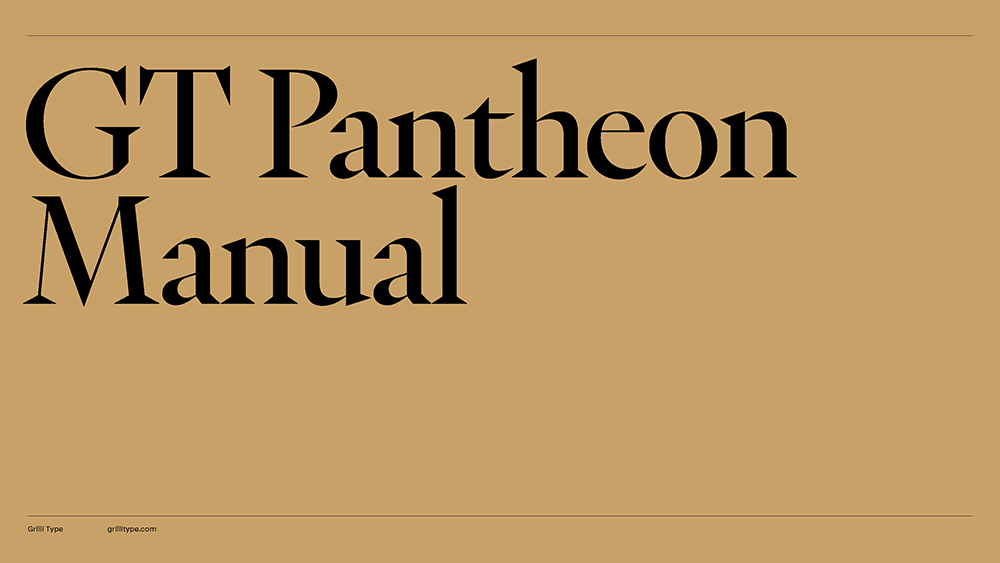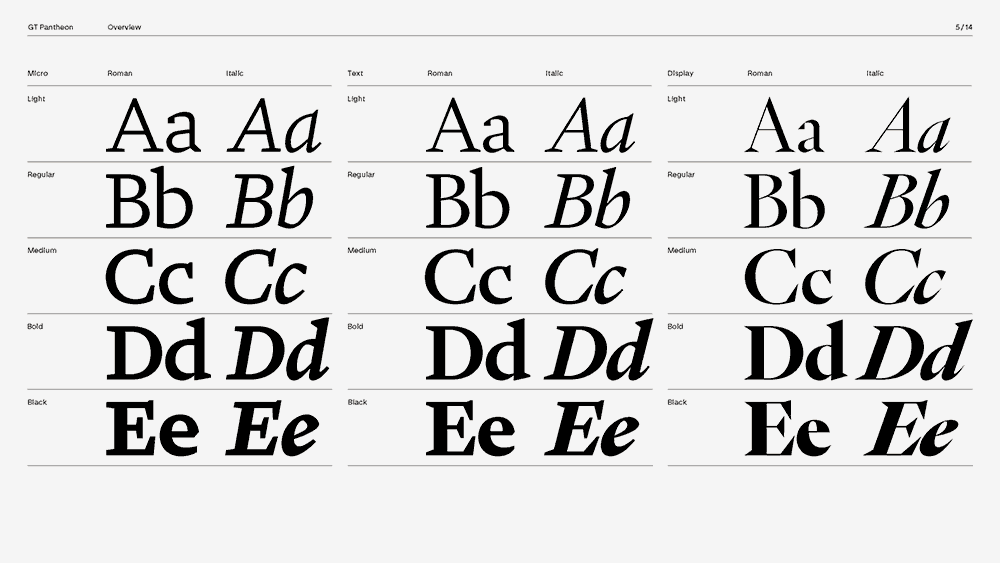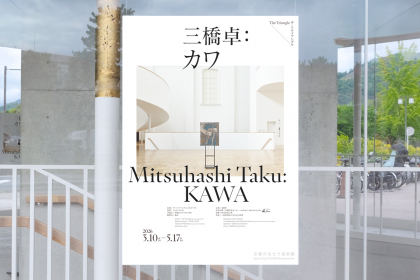
GT Pantheon
Typeface information
GT Pantheon is an interpretation of historic shapes in a contemporary manner. It exhibits an expressive and dynamic character visible in every stroke. At its core is the conception of three optically-adjusted faces, each designed to best represent the same type at different sizes: Display, Text, and Micro. Within this spectrum, the family moves between elegance, sharpness, warmth and robustness, matching expression with functionality.